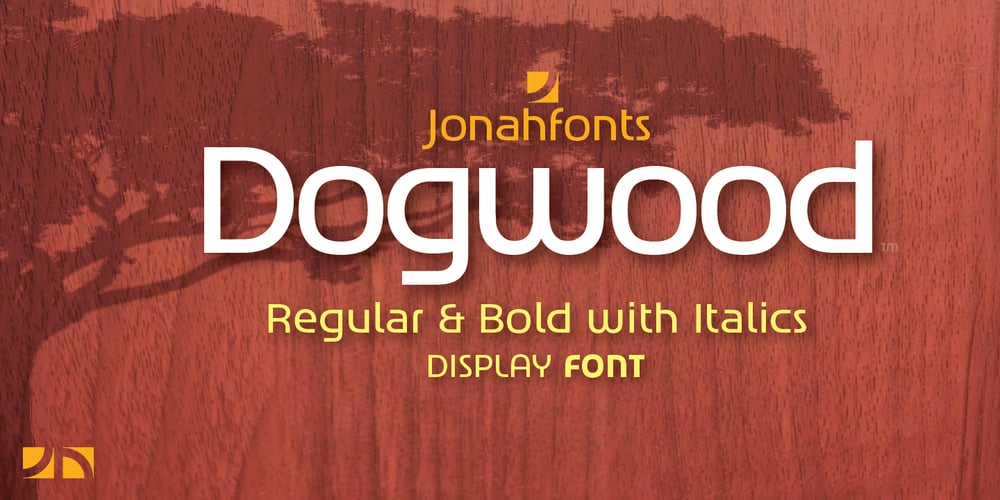
Dogwood Font Family was designed by John Nahmias and published by Jonahfonts. Dogwood contains 4 styles and family package options. Dogwood is suitable for captions, packaging, logos and the web. In 4 styles with a distinct authoritative character. There are a variety of ligatures and alternate glyphs.